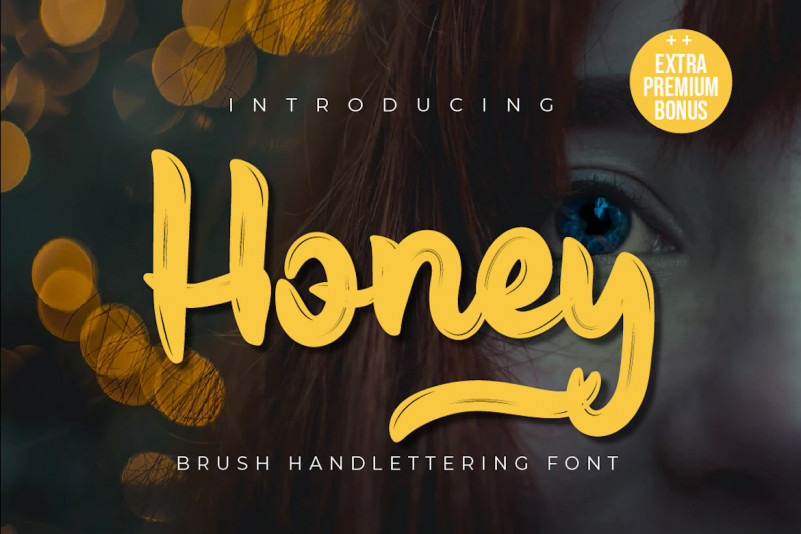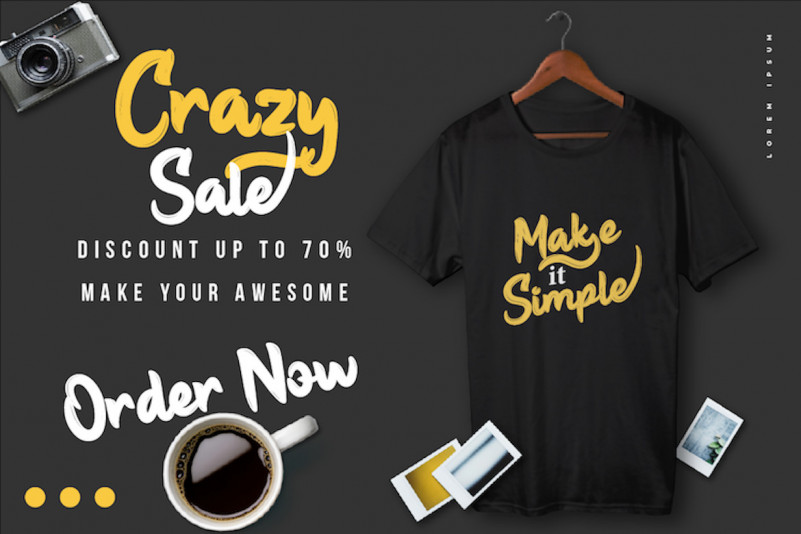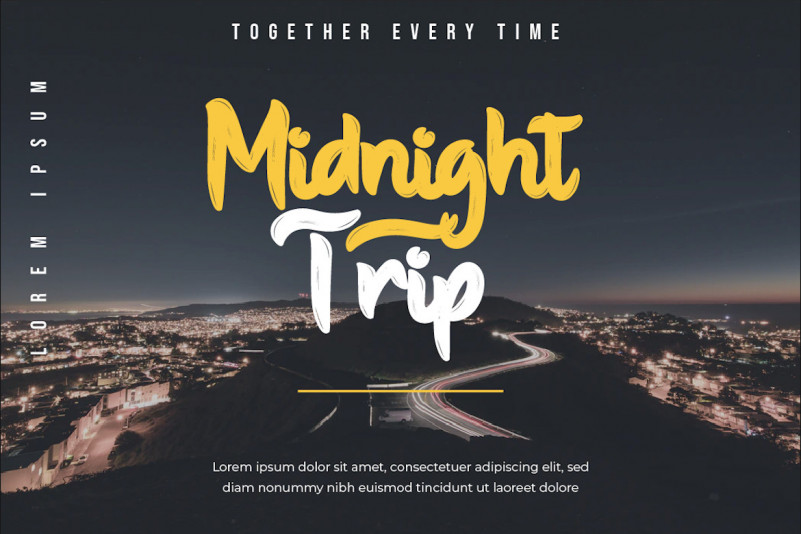
Honey Brush Typeface
Honey is a brush handwritten font. This is the perfect font for making original and outstanding designs.
This font is great for a wide variety of branding, advertising, posters, banners, packaging, podcasts, outdoor activities, apparel, quotes, beverages and more.